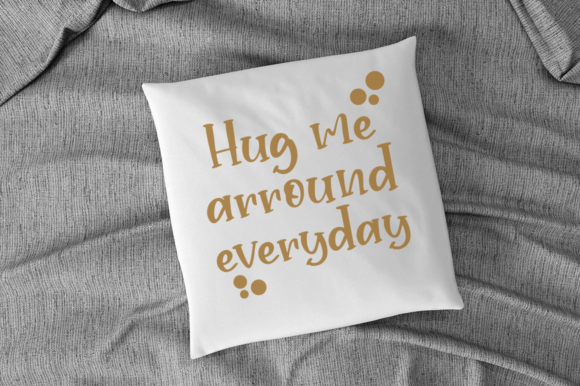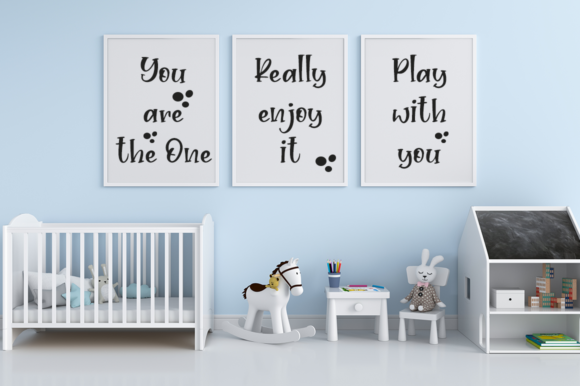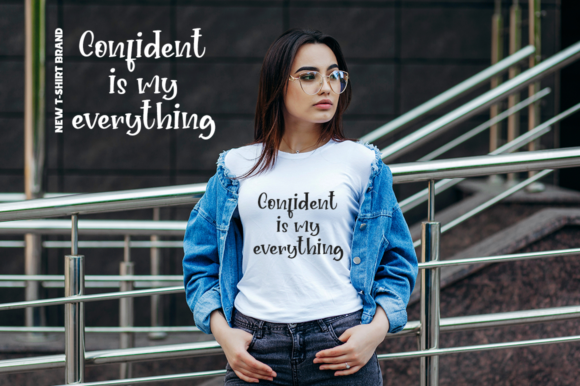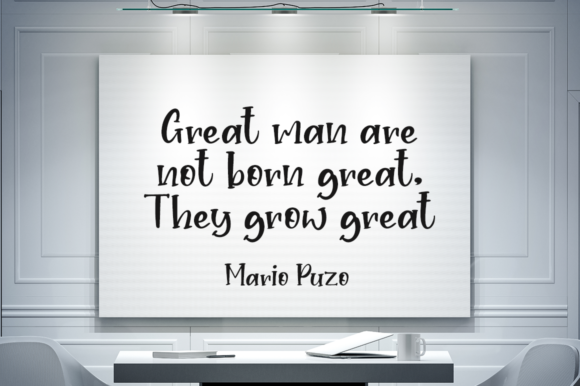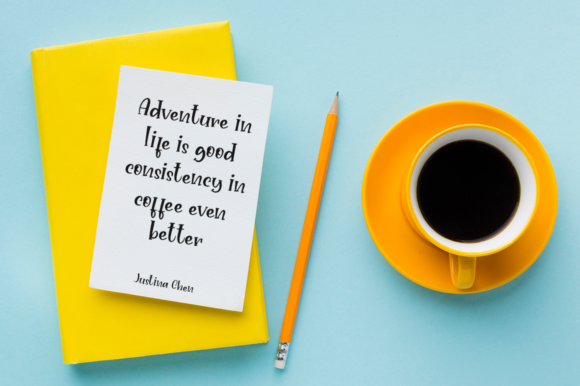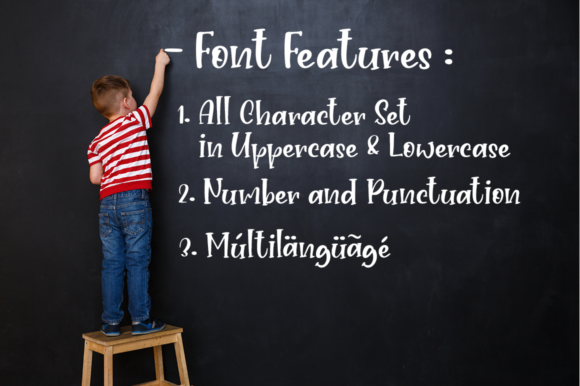
Introduction to Pumpkin Babes Font Font
Fonts play a crucial role in design, and the Pumpkin Babes Font font is a typeface that brings both character and versatility to any project. Whether you’re working on a branding project, a website, or a print design, the Pumpkin Babes Font font offers a unique style that can elevate your work.
Pumpkin Babes is a fun and quirky display font.
Friendly and trendy, this font is ideal for each of your casual designs .
Key Features of Pumpkin Babes Font Font
Why Choose Pumpkin Babes Font Font?
The Pumpkin Babes Font font is more than just a typeface – it’s a design tool that helps you communicate your message with style and clarity. Its unique character set and versatile design make it suitable for a wide range of applications, from elegant invitations to bold headlines.
With its carefully crafted letterforms and balanced proportions, the Pumpkin Babes Font font ensures readability and visual appeal across all mediums.
What makes Pumpkin Babes Font font special?
The Pumpkin Babes Font font stands out with its unique design, exceptional readability, and versatility across various design applications.